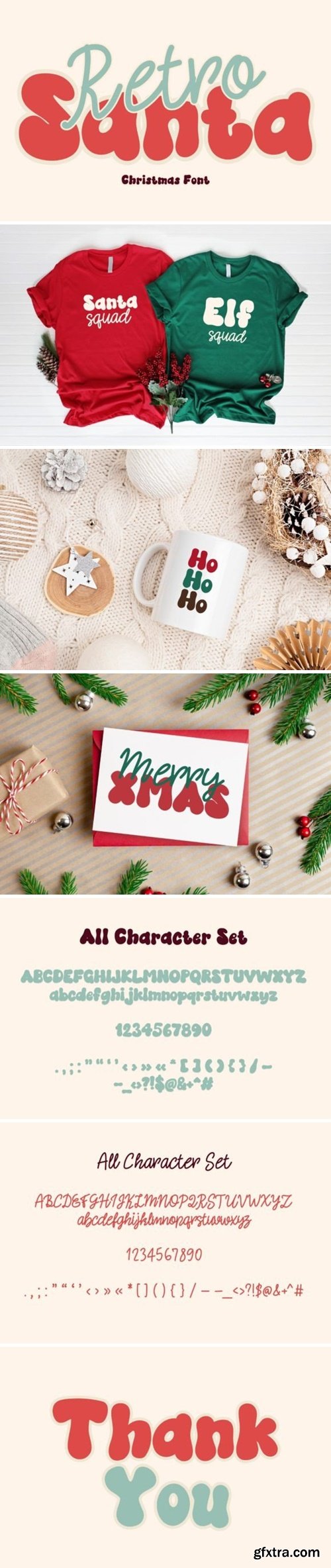
Retro Santa is a retro groovy display and script fonts. It embodies playfulness and authenticity and is the perfect choice for all your favorite projects such as blog posts, logos, branding, ads, invitations, greeting cards, planners, photo albums, decorations, and more. Add it to any of your designs, and enjoy the results!